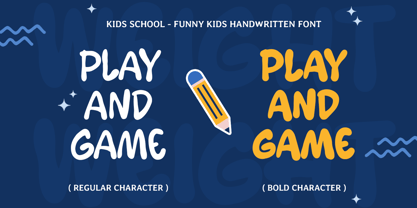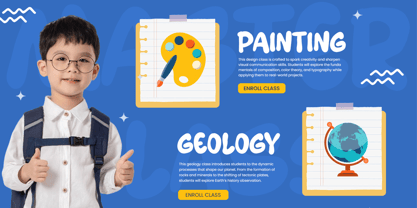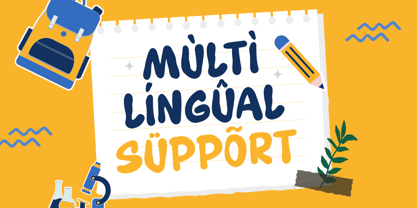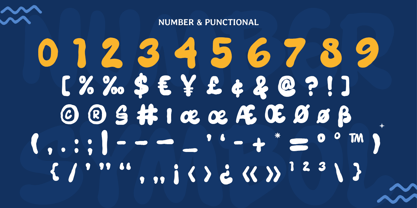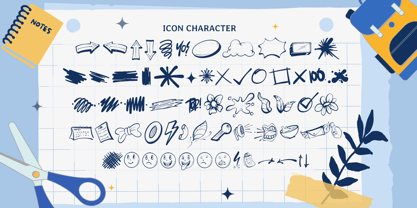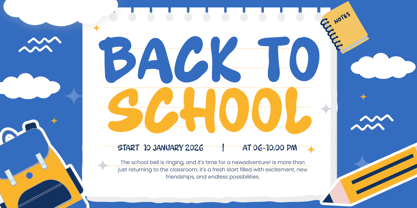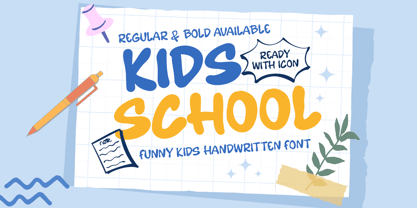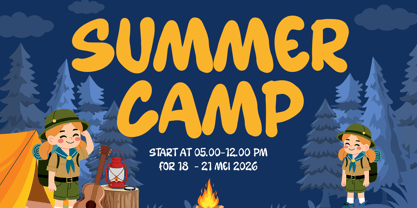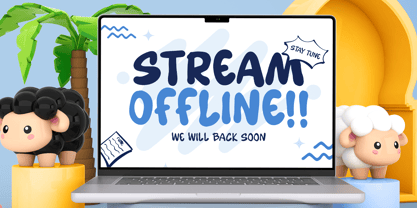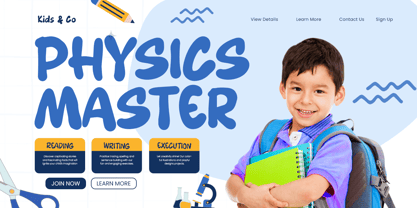
Kids School
The Kids School Font Family was designed by Zamroni Hamzah and published by Sensatype Studio. Kids School contains 3 styles and family package options. More about this family
KIDS SCHOOL is a funny kids handwritten font designed with a cheerful, playful, and friendly personality. Its casual hand-drawn letterforms bring a warm classroom feel, making it perfect for creative projects that need a cute, joyful, and approachable style.
This font is ideal for kids branding, school posters, children’s books, learning materials, toy packaging, classroom decorations, worksheets, logos, stickers, social media graphics, and playful headline designs. As a funny kids handwritten font, KIDS SCHOOL adds personality and imagination to both digital and print layouts.
With its charming handwritten look and fun display style, KIDS SCHOOL helps designers create visuals that feel bright, friendly, and full of childhood energy.
KIDS SCHOOL – Funny Kids Handwritten Features
• Playful handwritten character style
• Funny and friendly letterforms for kids designs
• Ideal for school posters, children’s books, and learning materials
• Perfect for logos, stickers, packaging, and classroom branding
• Includes uppercase, lowercase, numerals, and punctuation
• Great for digital and print projects
• Works well for social media, posters, and advertising
Bring joyful classroom energy to your designs with KIDS SCHOOL – a funny kids handwritten font made for playful creativity. 🎒